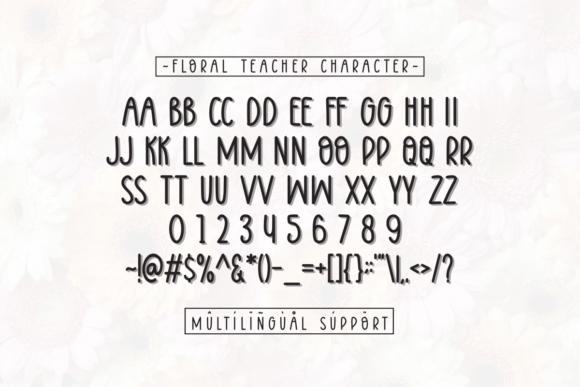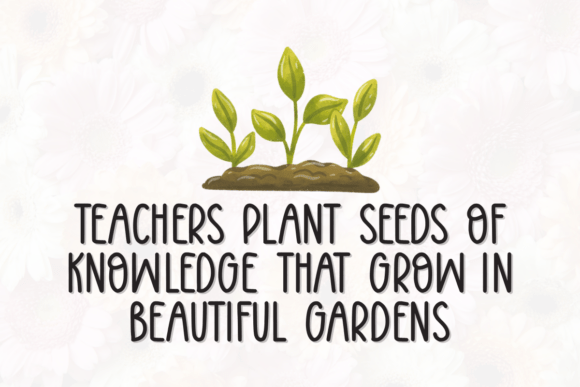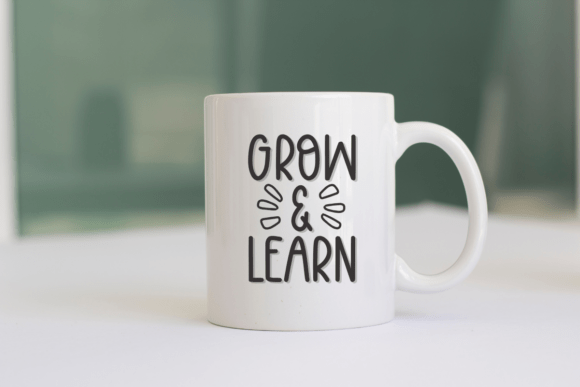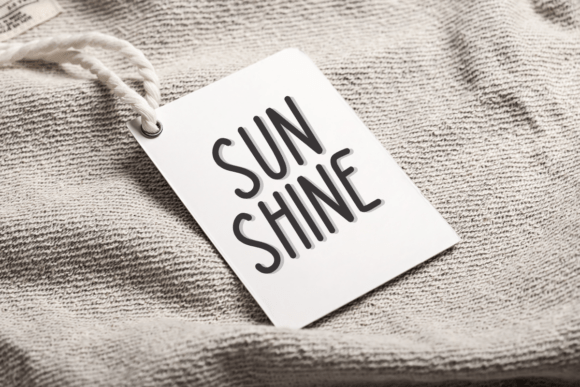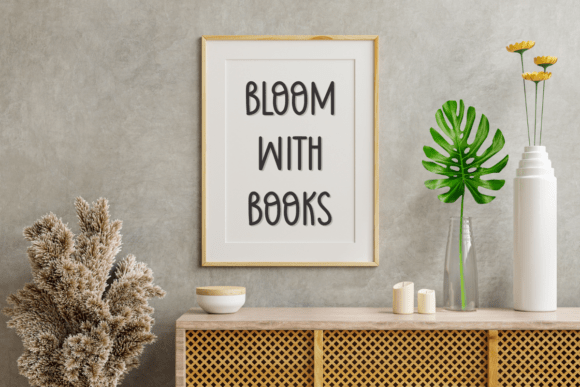
Introducing Floral Teacher Font: The Perfect Companion for Crafters and Creative Business Owners
Are you a crafter, Cricut user, or creative business owner looking for a font that can add a touch of elegance and playfulness to your designs? Look no further than Floral Teacher Font! This adorable sans serif font is specifically designed to meet the needs of crafters, makers, and entrepreneurs who want to create stunning visual content for their products, marketing materials, and social media platforms.
What Makes Floral Teacher Font So Special?
Floral Teacher Font is more than just a pretty font – it’s a versatile design tool that can help you take your crafting and design business to the next level. Here are some of its key features:
• Cute and Fun Design: Floral Teacher Font boasts a charming, hand-crafted design that’s perfect for creating eye-catching T-shirts, stickers, planners, and other craft projects.
• San Serif Style: The font’s clean and modern sans serif style makes it easy to read and versatile enough to use for a wide range of design applications.
• PUA Encoding: The font is PUA encoded, which means you can easily access and use the font’s special characters and glyphs to add extra flair to your designs.
Endless Design Possibilities with Floral Teacher Font
With Floral Teacher Font, the creative possibilities are endless! Here are some ideas to get you started:
• T-Shirts and Apparel: Create custom T-shirts, hoodies, and other apparel for your business or personal use.
• Stickers and Decals: Design adorable stickers and decals for laptops, water bottles, and more.
• Planners and Organizers: Add a touch of personality to your planners, journals, and organizers.
• KDP Interiors: Use Floral Teacher Font to create engaging and professional-looking interiors for your Kindle Direct Publishing (KDP) books.
• Invitations and Stationery: Design beautiful invitations, greeting cards, and stationery for special occasions.
Why Choose Floral Teacher Font for Your Design Needs?
As a crafter or creative business owner, you know how important it is to have a font that can help you stand out from the crowd. Here are some reasons why Floral Teacher Font is the perfect choice for your design needs:
• Aesthetic Appeal: Floral Teacher Font’s charming design will add a touch of elegance and playfulness to your creations.
• Profit-Boosting Potential: With Floral Teacher Font, you can create professional-looking designs that will help you attract more customers and boost your sales.
Get Ready to Elevate Your Designs with Floral Teacher Font!
In conclusion, Floral Teacher Font is an excellent choice for crafters, Cricut users, and creative business owners who want to add a touch of elegance and playfulness to their designs. Its versatility, ease of use, and aesthetic appeal make it the perfect font for a wide range of design applications. So go ahead, get creative, and see what amazing designs you can create with Floral Teacher Font!